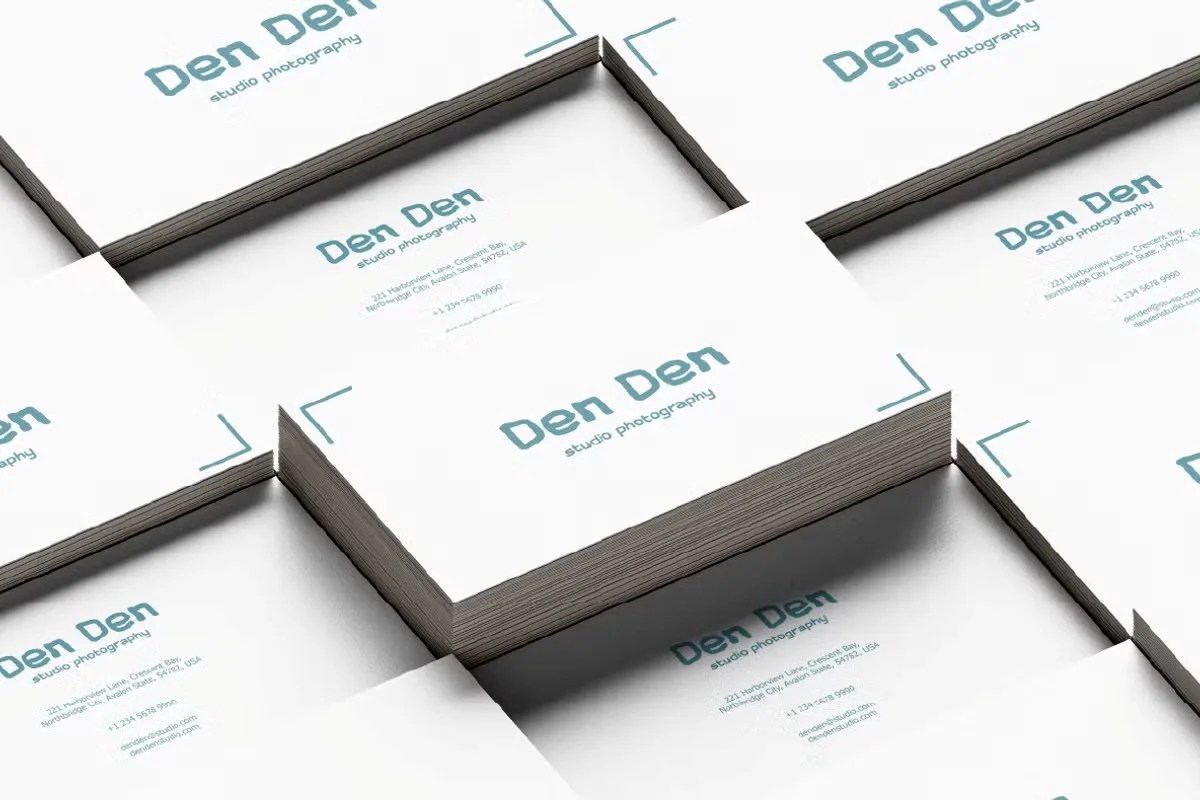
Omiren by Nian Keun Studio. This is a clean and impactful futuristic display font that brings a touch of science fiction and high-tech style to your designs. Omiren uses sharp angles and minimalist forms to build its alphabet. This creative approach results in an aesthetic that is both sleek and powerful. It is the perfect choice for projects that need a forward-thinking and innovative visual identity from the very start.
This font is an ideal asset for any tech-focused creative work. Specifically, its sleek style is perfect for the branding of a software company or a tech startup. It immediately communicates a cutting-edge identity. Furthermore, this futuristic display font is excellent for posters and titles within the science fiction genre. Use it for video game interfaces, YouTube channel art for tech reviewers, or any design that explores themes of the future, space exploration, or artificial intelligence.
• Clean futuristic display style
• Features sharp angles and minimalist forms
• Ideal for tech branding, gaming, and posters
• Adds a sleek, science-fiction aesthetic
Omiren